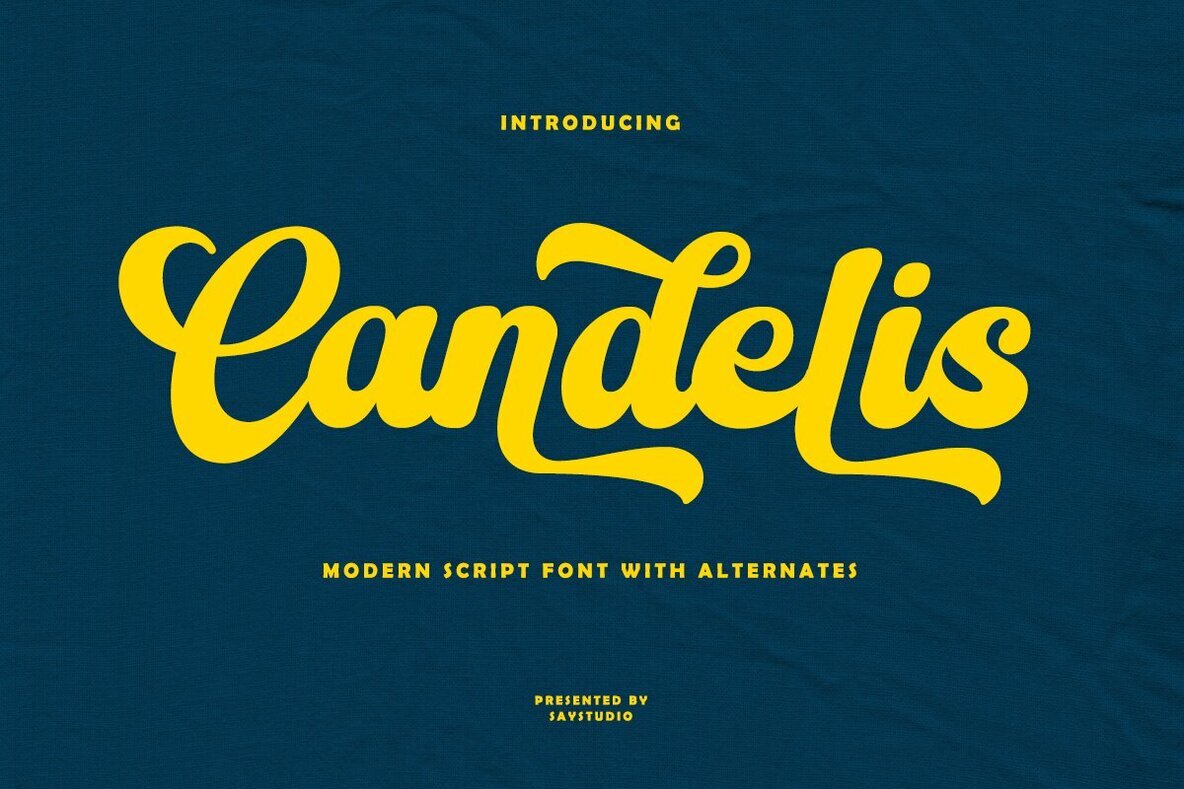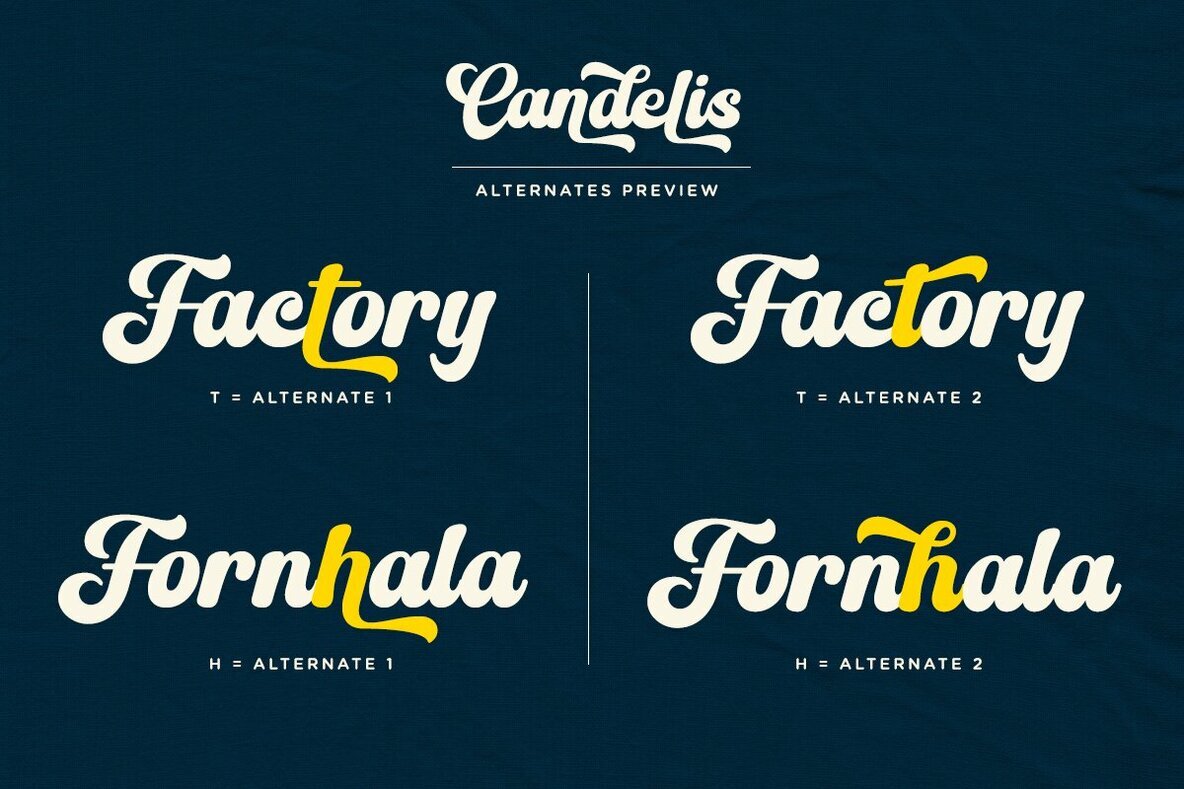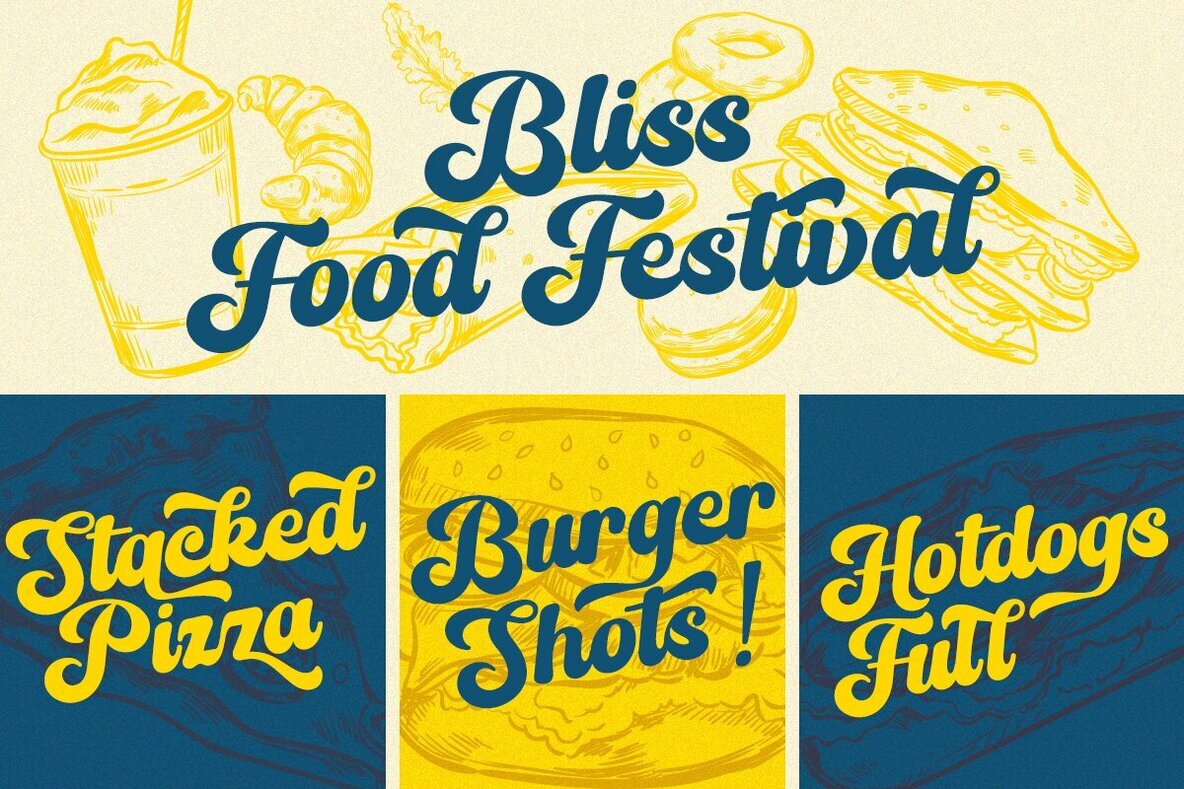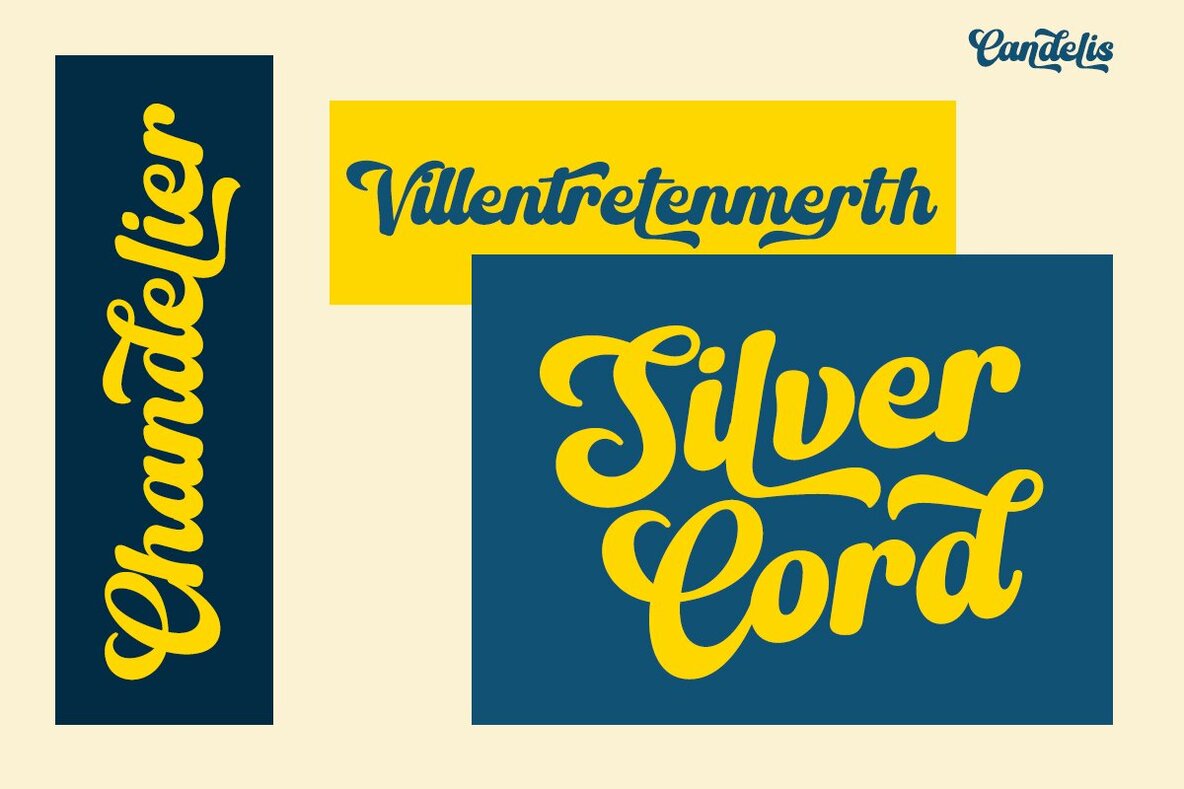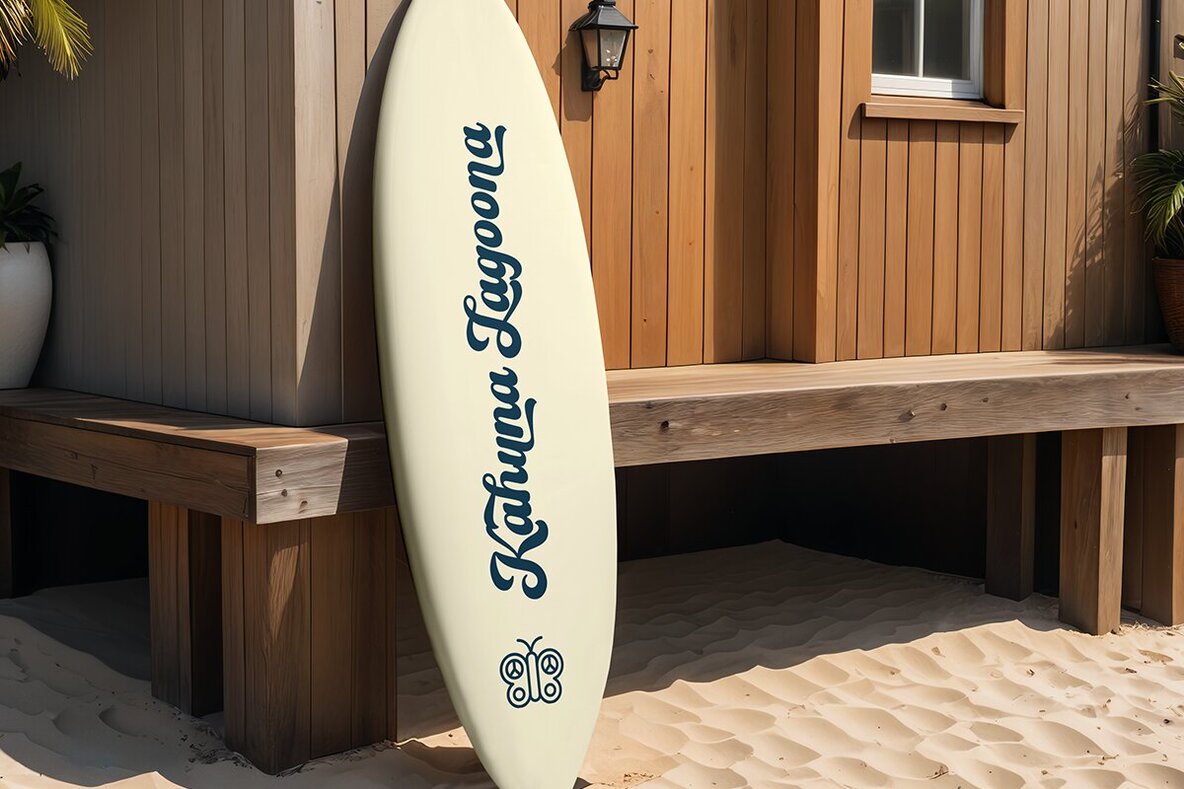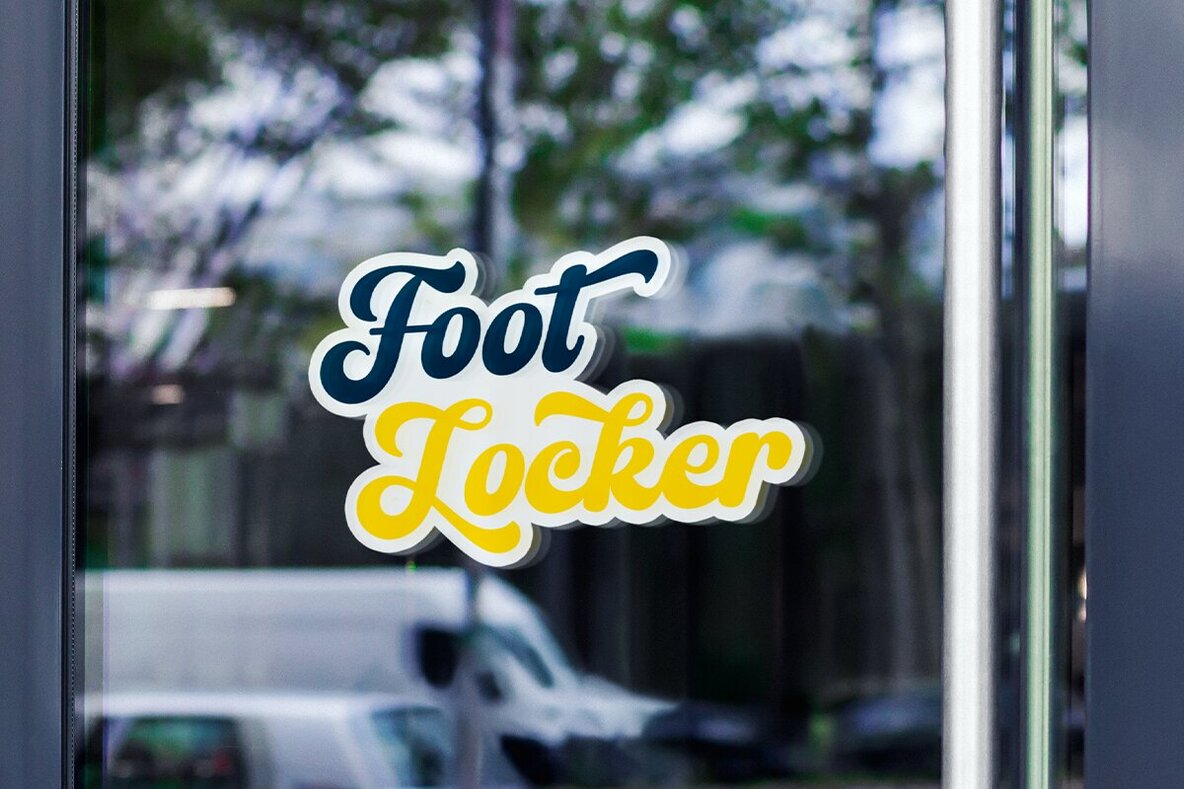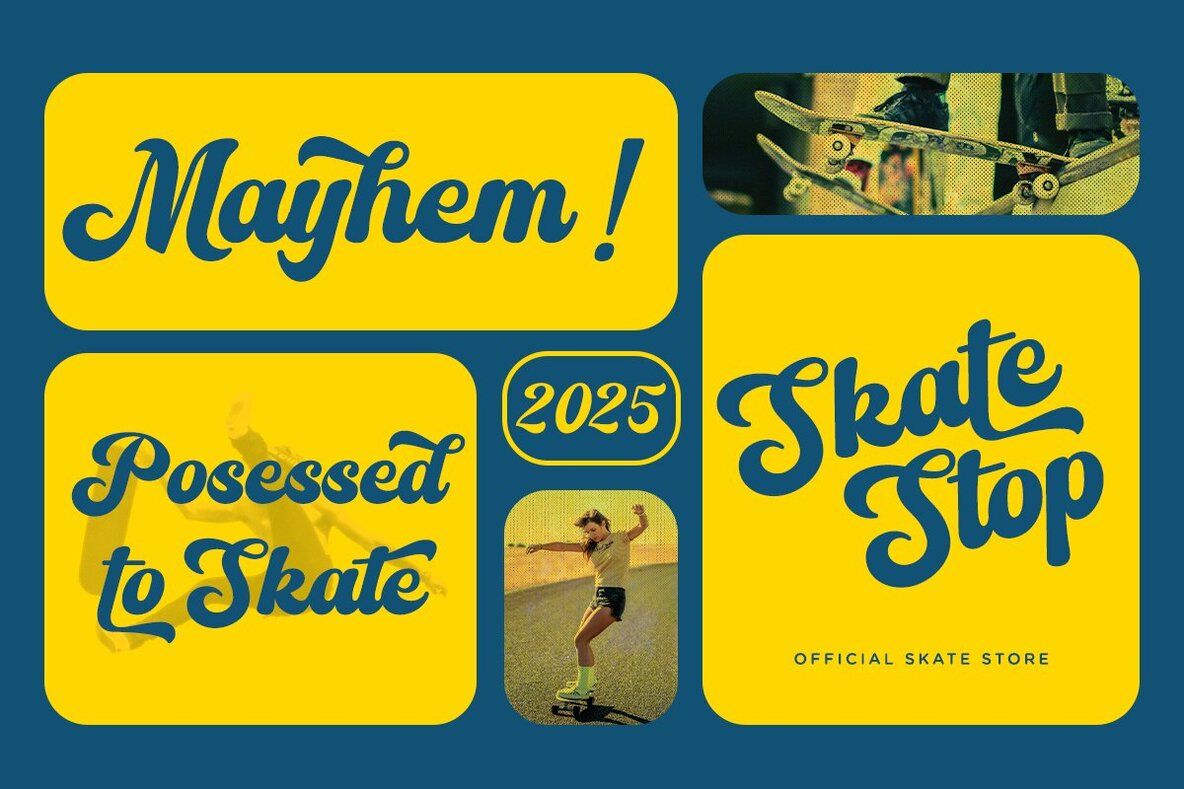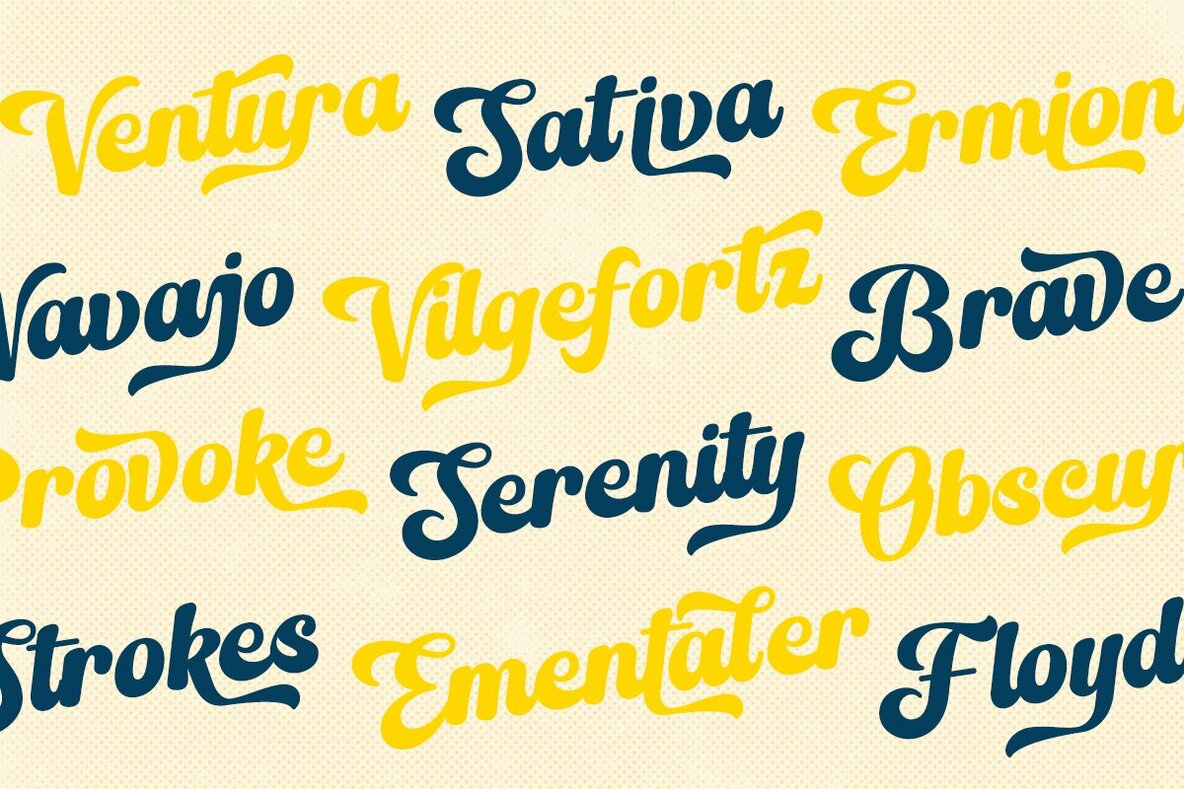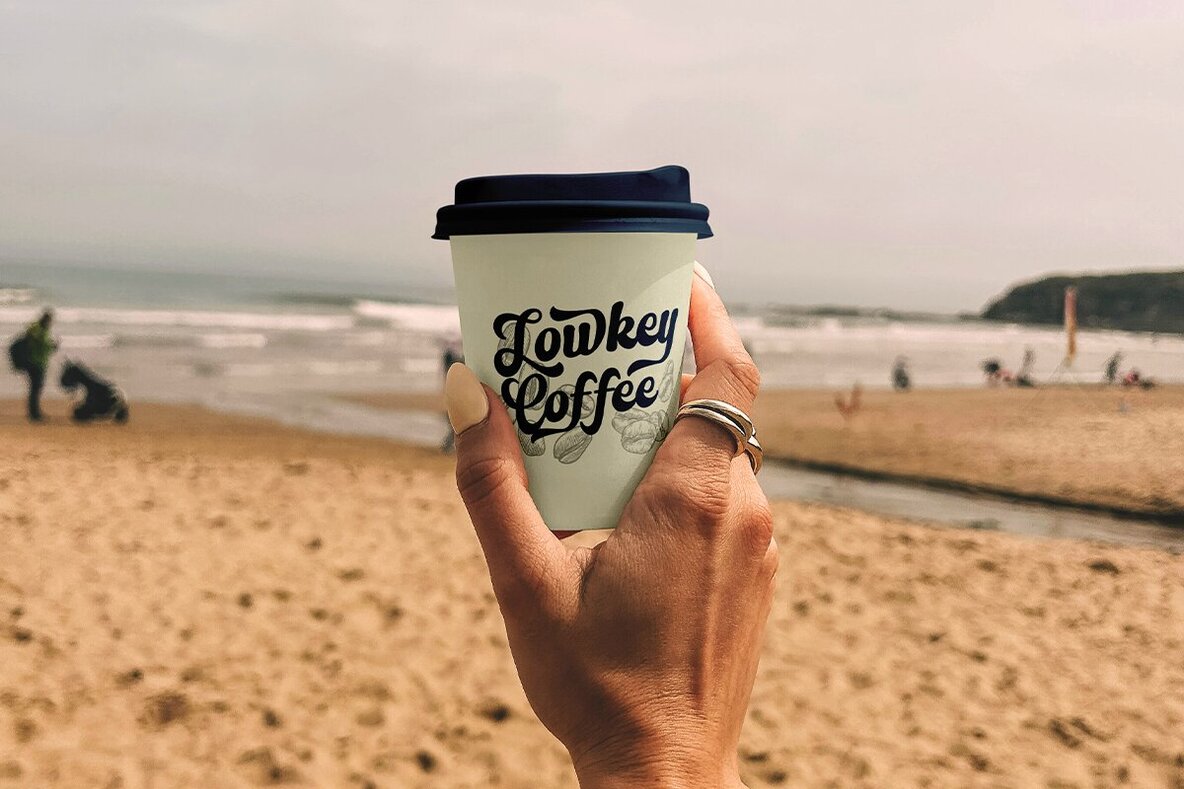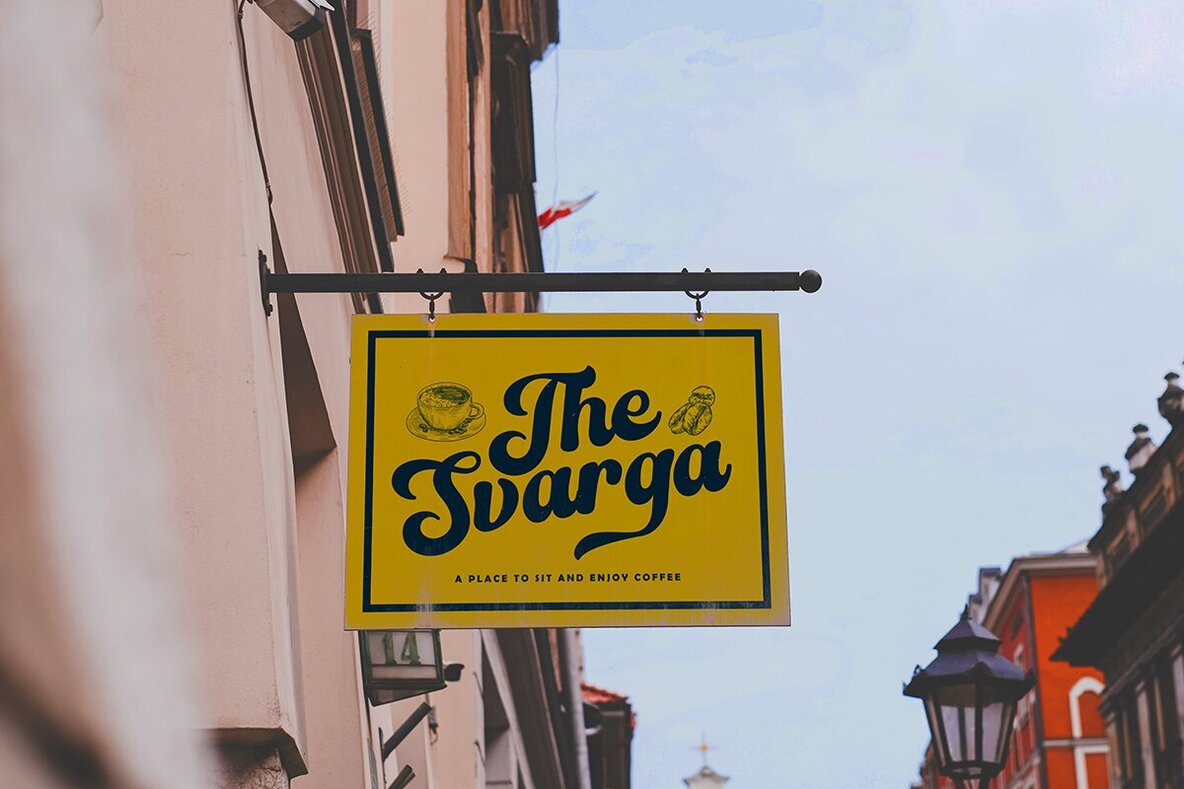
Candelis Font
Candelis
Discover the unique charm of Candelis, a font that effortlessly merges modern sleekness with a touch of retro flair. Designed with versatility in mind, Candelis includes a range of alternatives and ligatures, making it a go-to choice for creating captivating logos, memorable quotes, engaging social media content, and elegant wedding invitations. Whether you're working on branding projects or enhancing magazine imagery, Candelis offers the perfect typographic solution.Candelis Font: A Blend of Modern and Retro Elegance